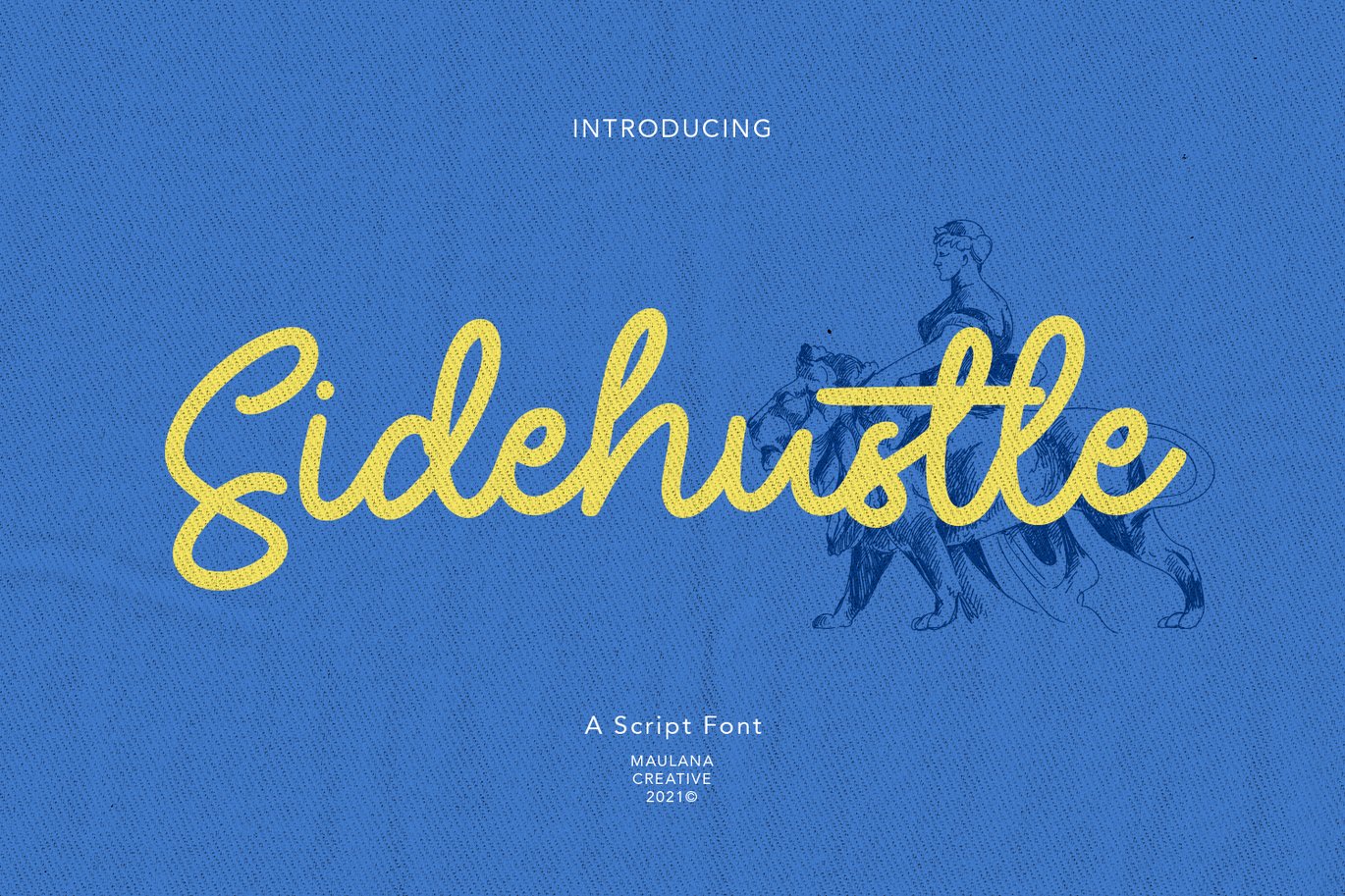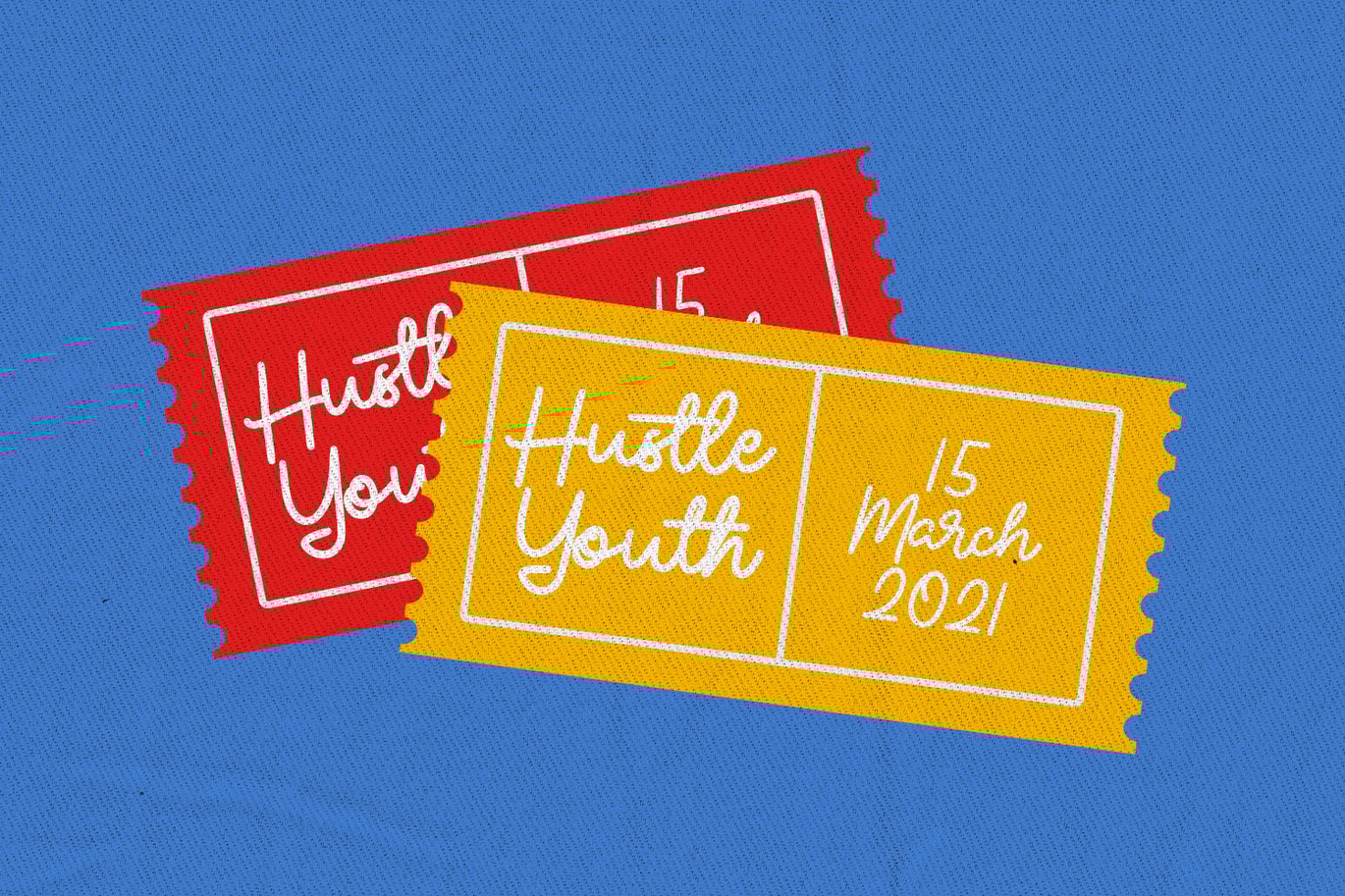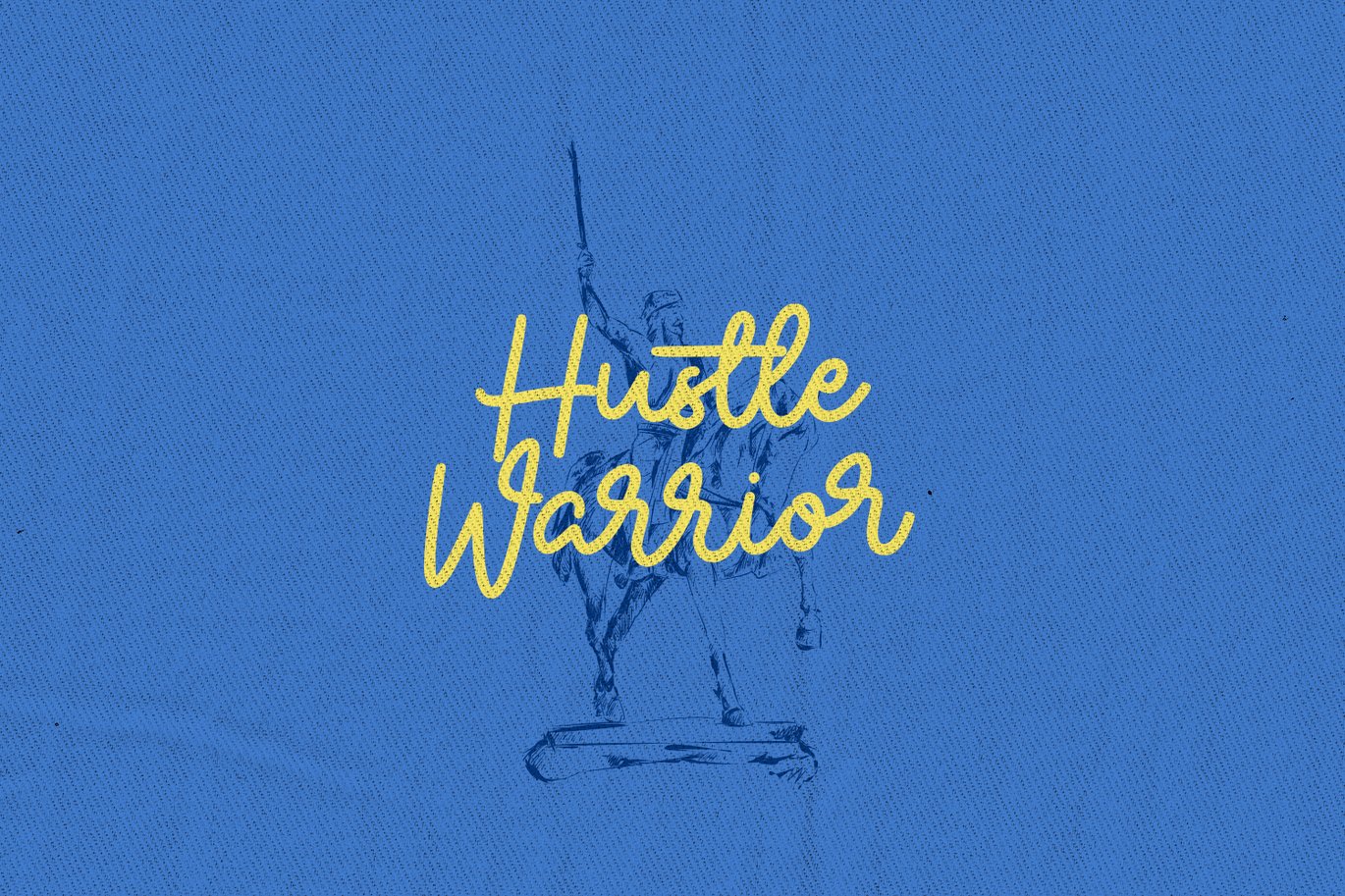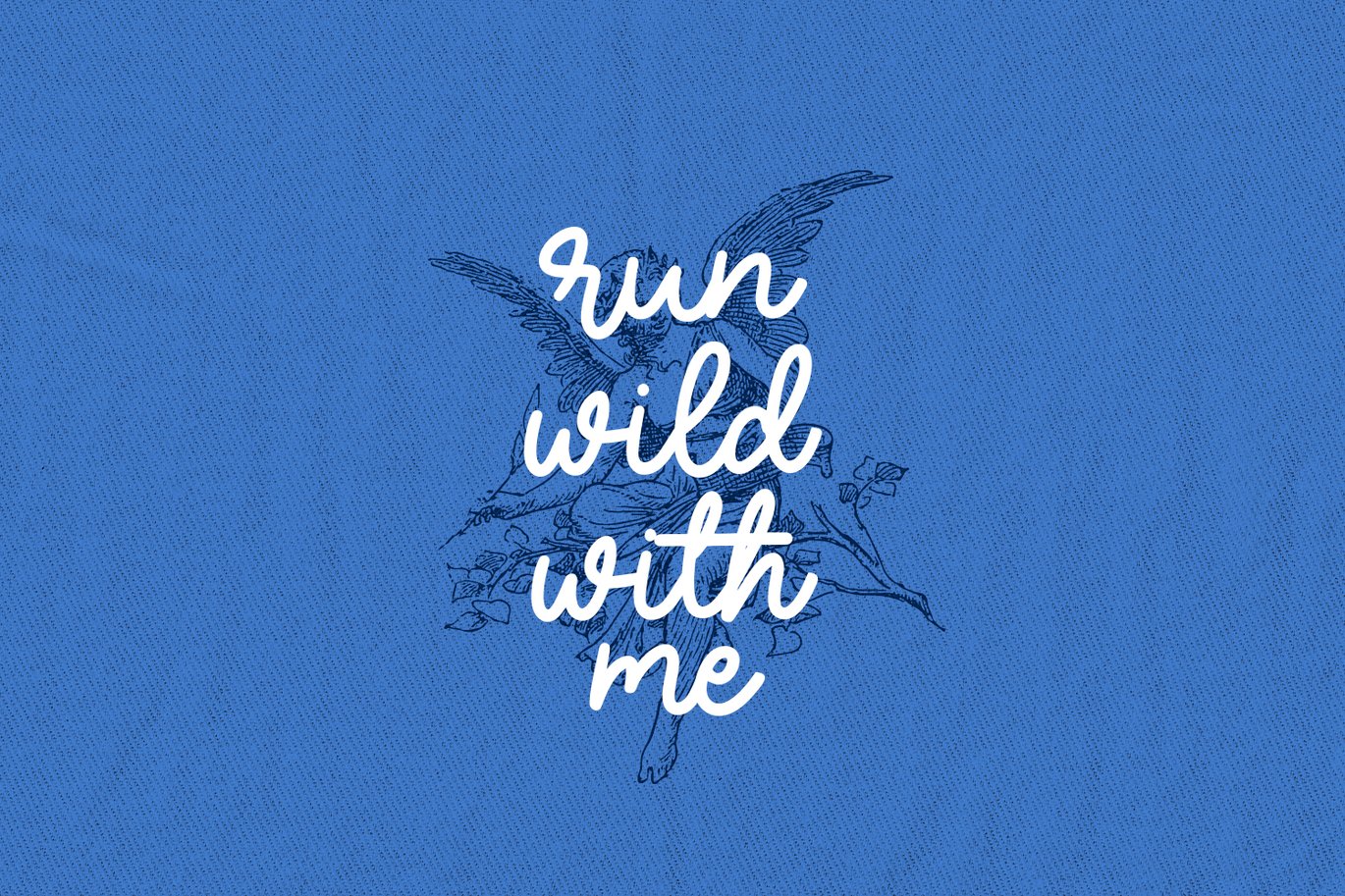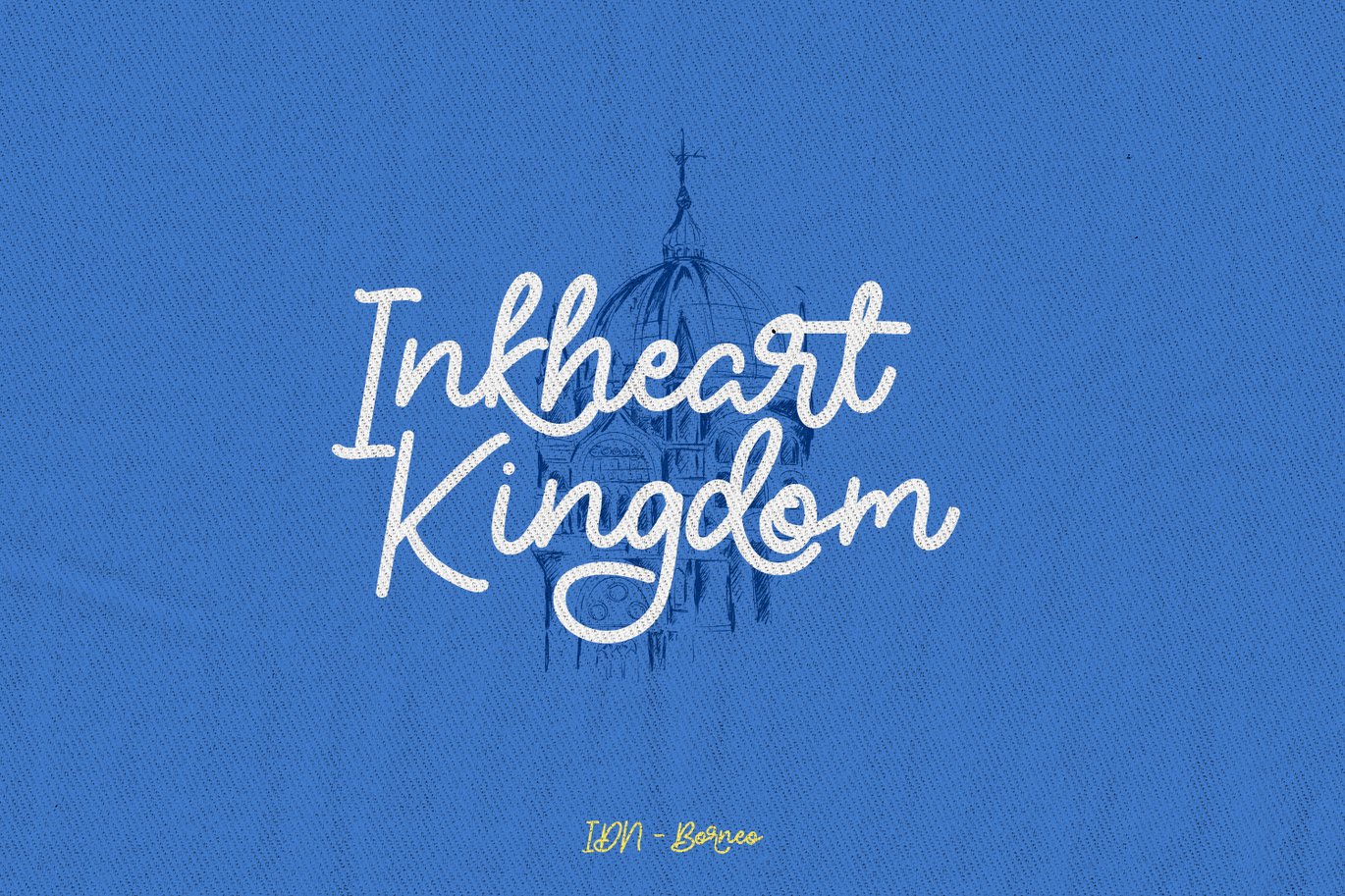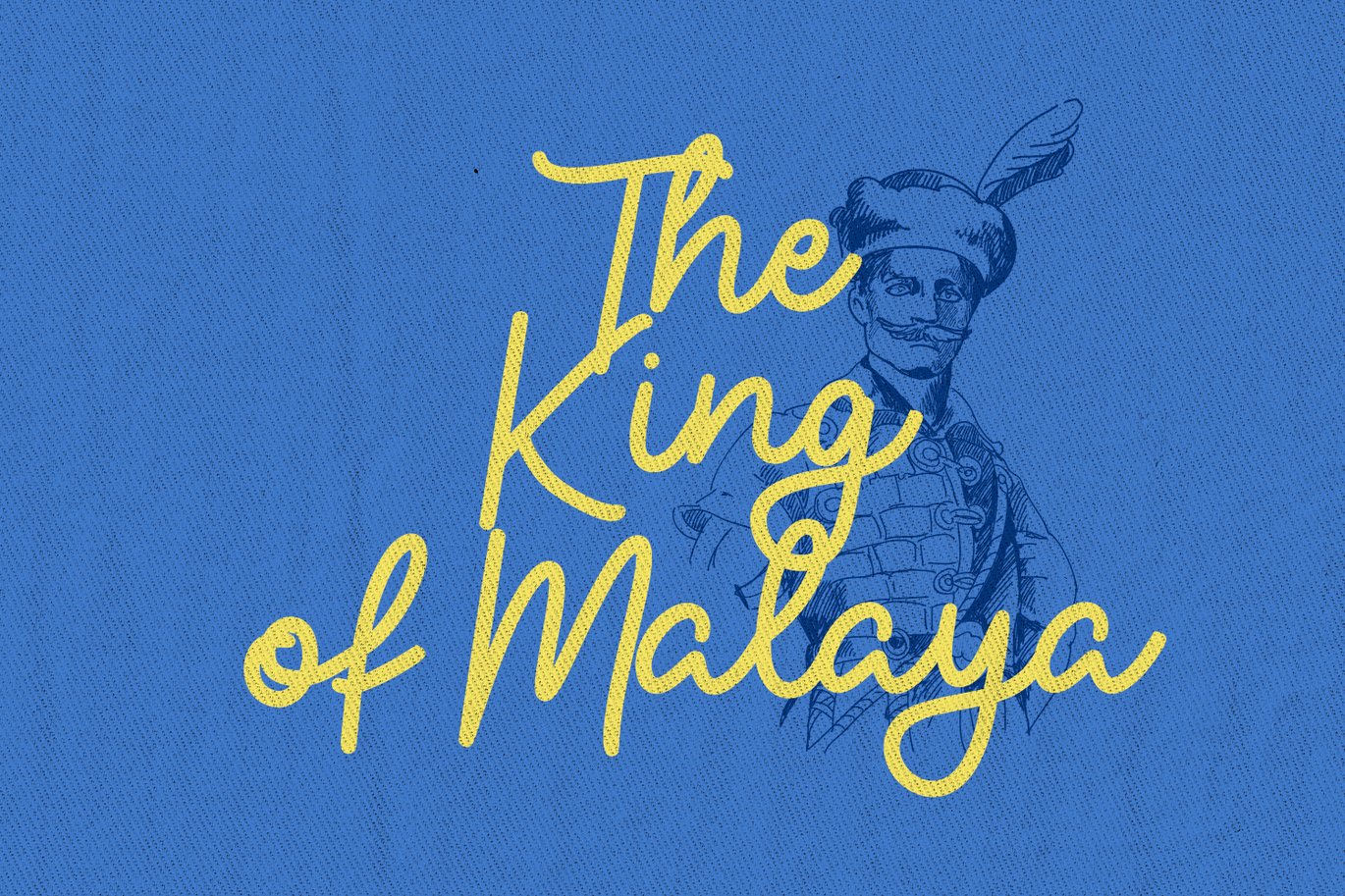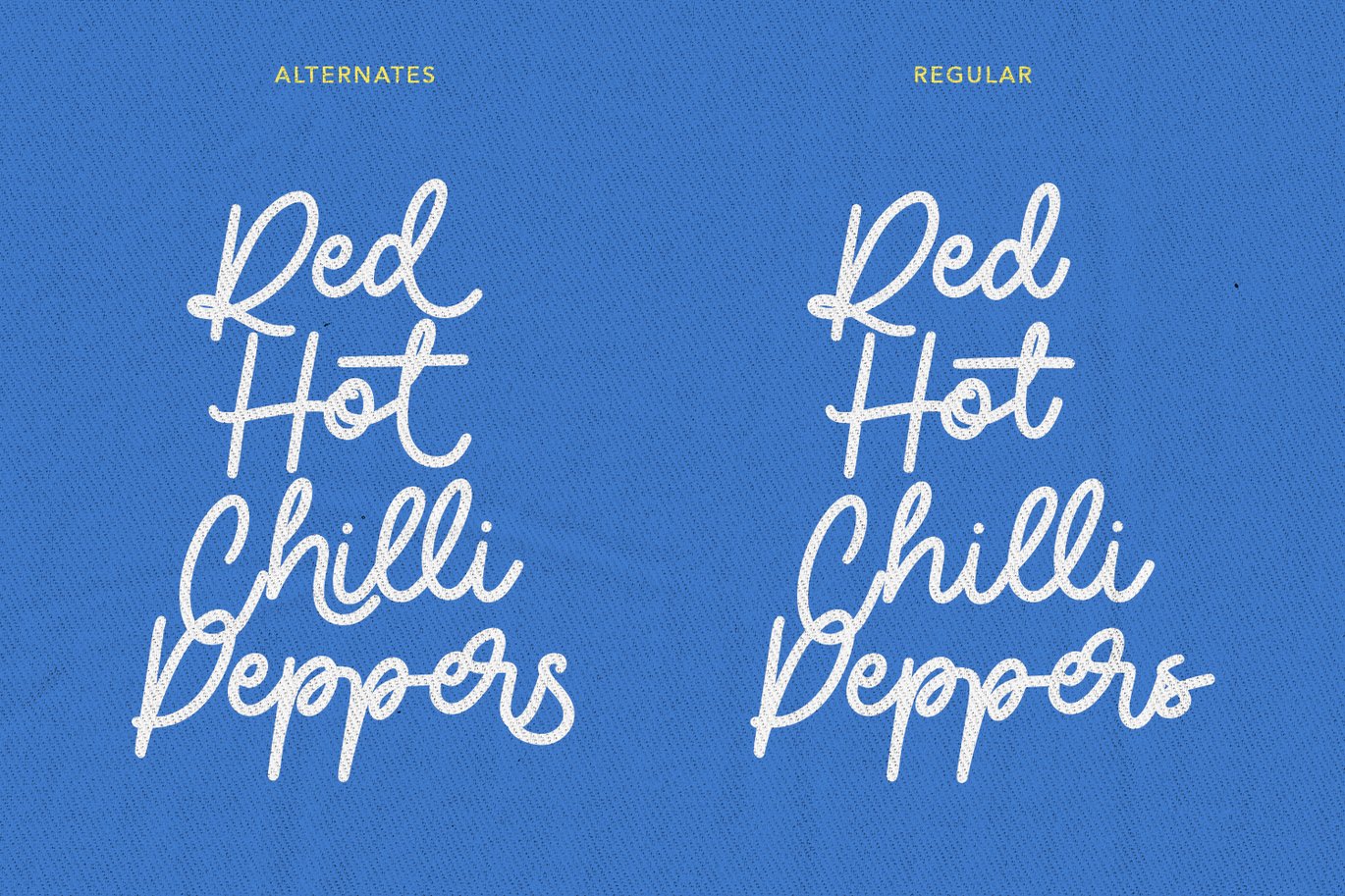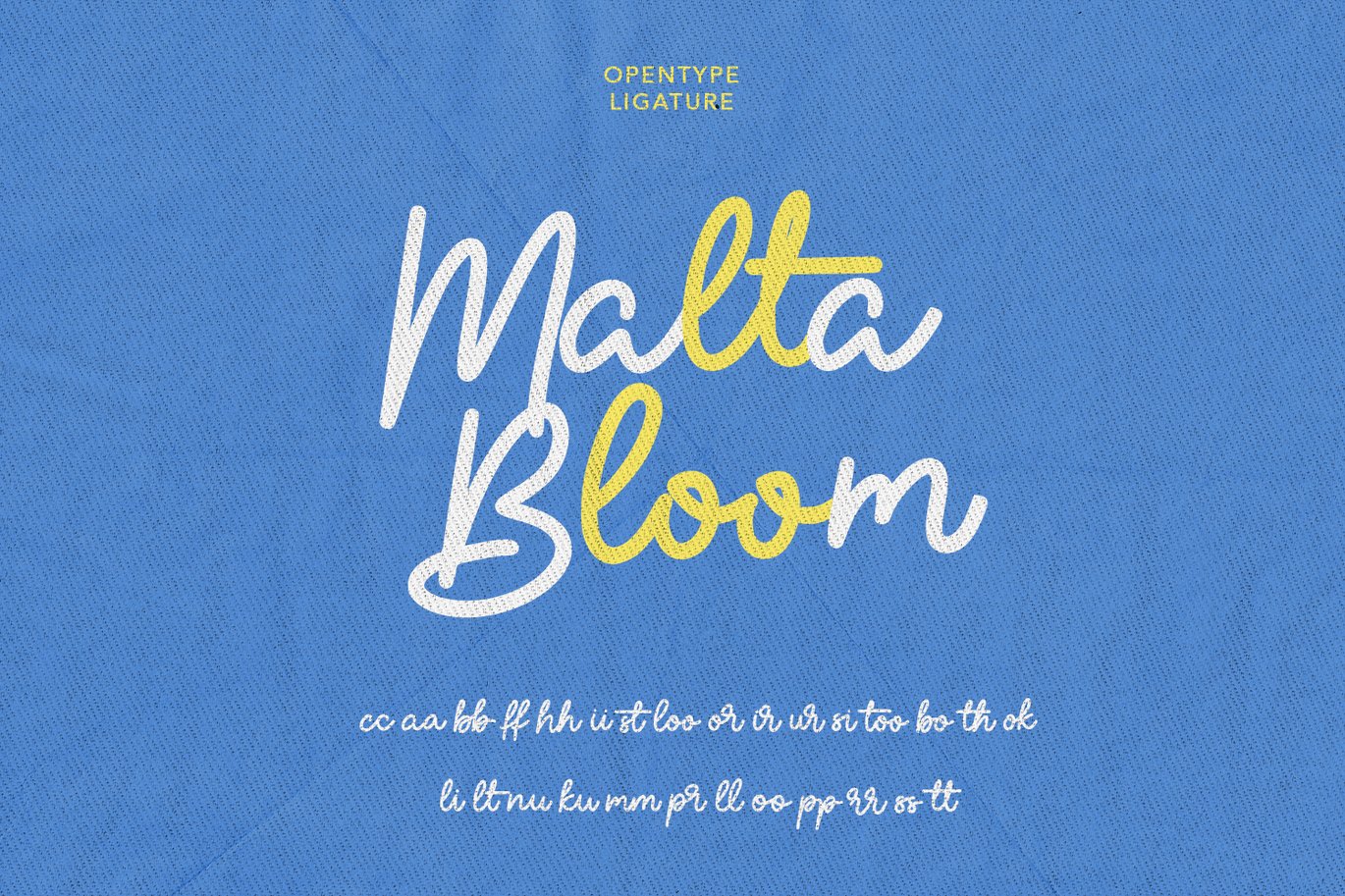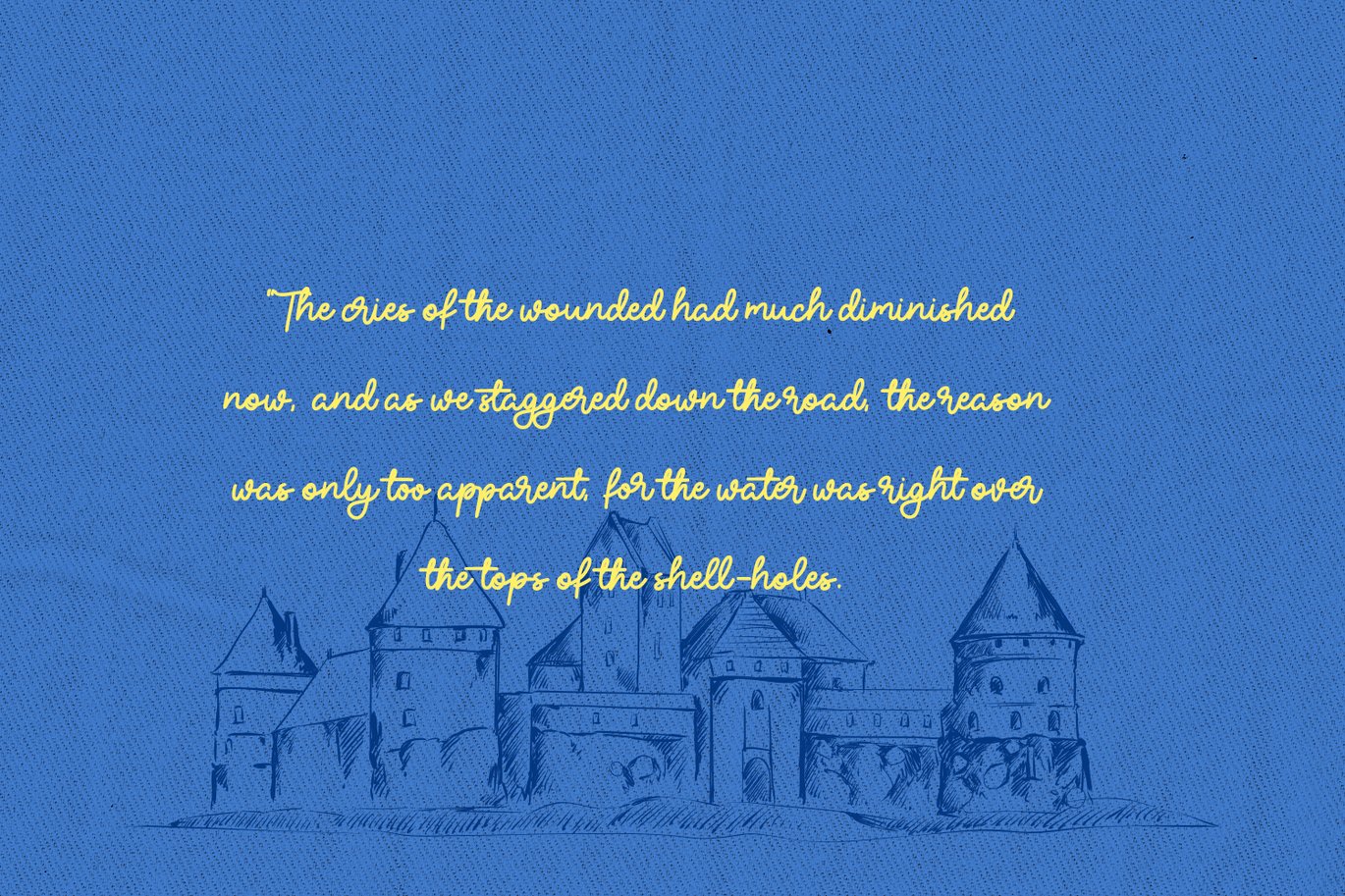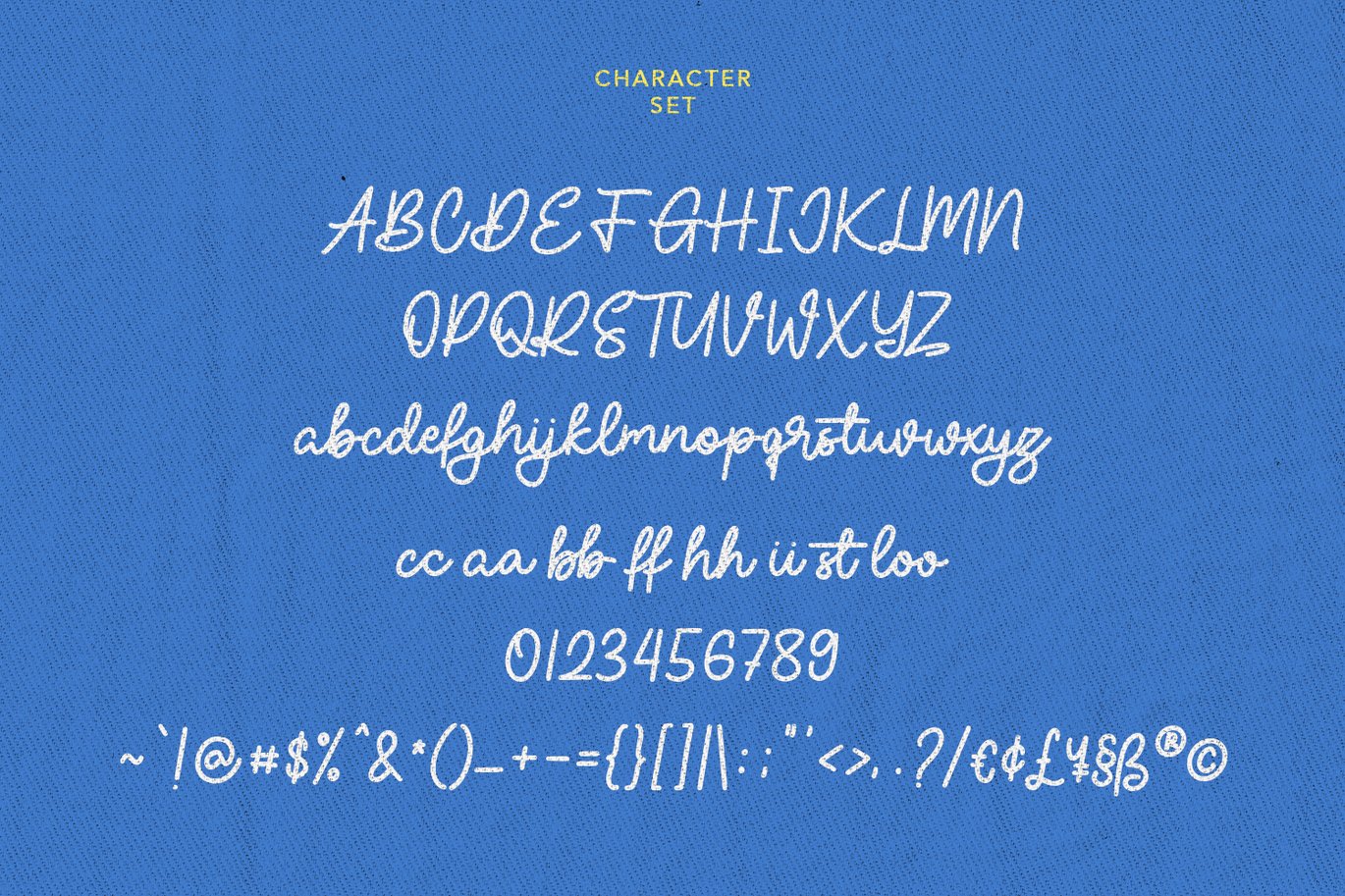
Sidehustle Vintage Script Font
Sidehustle is casual script font, with clean bold mono-line stroke, slant and fun character. It has Opentype features ligatures of character and some lowercase alternative option, To give you an extra creative work. Sidehustle script font support multilingual more than 100+ language. This font is good for logo design, Social media, Movie Titles, Books Titles, a short text even a long text letter and good for your secondary text font with sans or serif. Make a stunning work with Sidehustle font.